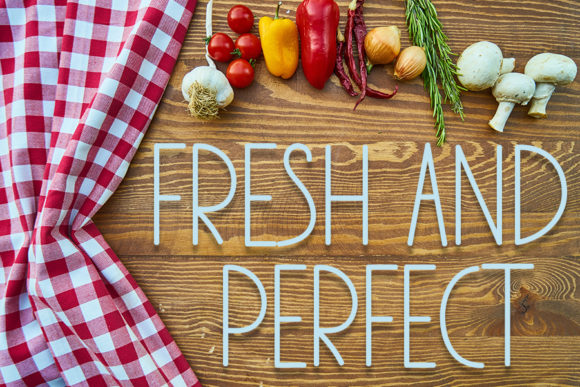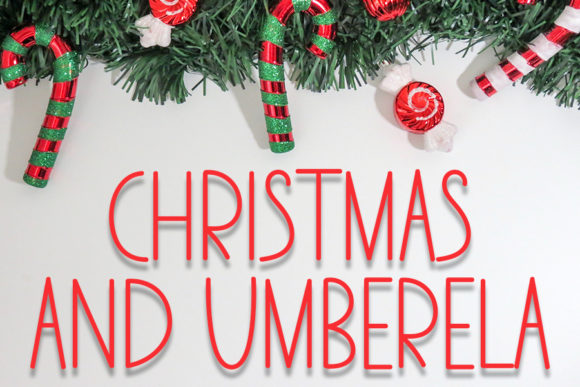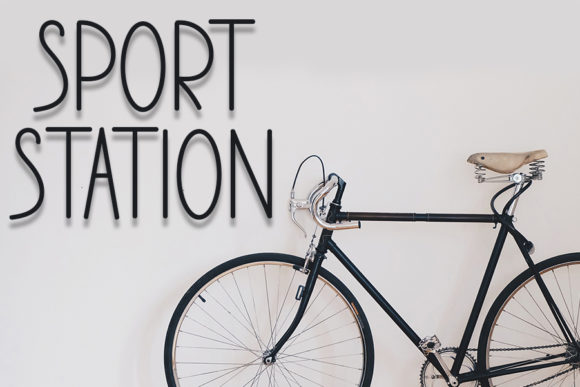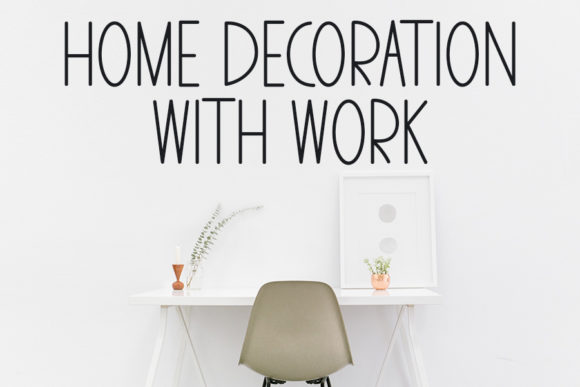
Introduction to Mini Mouse Font
Do you ever find yourself stuck on a creative project, searching for the perfect design element to bring it all together? I know I do. Recently, I stumbled upon a stylish and neat sans serif font that has been a game-changer for me – the Mini Mouse Font. Its friendly and unique aesthetic has allowed me to take my designs to the next level, and I’m excited to share it with you.
As a valuable resource for designers, the Mini Mouse Font offers a level of flexibility and adaptability that’s hard to find in other design elements. With its clean lines and transparent background, it’s the perfect addition to any creative project. Whether you’re working on a logo, brochure, or website, this font is sure to impress. And the best part? It’s available for free download, making it an accessible and high-quality design resource for designers of all levels.
Key Features of Mini Mouse Font
- High-quality design resource for creative projects, offering a unique and playful aesthetic.
- Perfect for designers and artists looking for a fun and whimsical font to add a touch of personality to their creative project.
Honest Review: Mini Mouse Font
I recently had the chance to work with the Mini Mouse Font, and I must say it’s been a great addition to my design resource library. The font is perfect for those creative projects that require a touch of nostalgia and whimsy.
What works well with the Mini Mouse Font is its versatility. It’s available as a free download, making it accessible to designers of all levels. The font is also high quality and has a transparent background, which allows for seamless integration into any design project.
- ✨ The font is incredibly easy to use, even for those who are new to design.
- ✨ The high-quality design makes it perfect for print and digital projects.
- ✨ The transparent background allows for endless customization options.
However, there are a few limitations to keep in mind. The font is a bit on the smaller side, which can make it difficult to read in certain contexts.
- ⚠️ The font size may need to be adjusted for optimal readability.
- ⚠️ The font may not be suitable for projects that require a large font size.
Overall, I’m impressed with the Mini Mouse Font. It’s a great addition to any design resource library, and I would highly recommend it for those looking for a high-quality, free font.
How to Use Mini Mouse Font
The Mini Mouse Font is a unique and playful design resource that can add a touch of whimsy to any creative project. With a transparent background and high quality design, this font is perfect for designers looking for a distinctive element to enhance their work.
Tips for Getting the Most Out of the Mini Mouse Font
To get the most out of the Mini Mouse Font, try using it in combination with other design elements, such as bold colors and fun graphics. You can also experiment with different font sizes and styles to create a unique look.
The Mini Mouse Font is perfect for a variety of creative projects, including:
- Children’s book illustrations
- Party invitations and decorations
- Brand logos and marketing materials